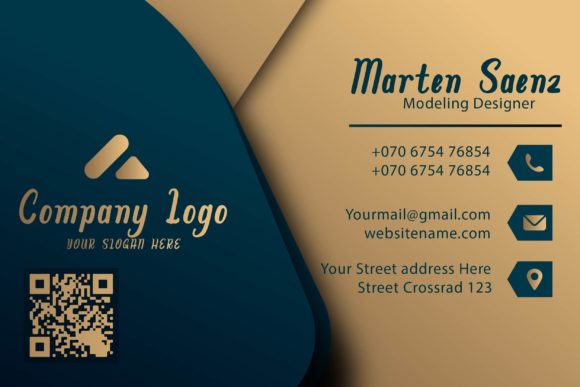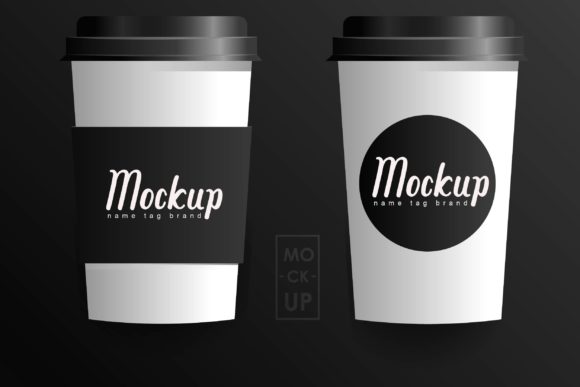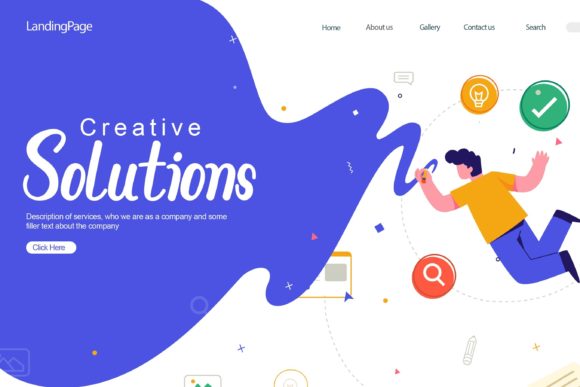
Introduction to Rondo Ship Font
Rondo Ship is a unique and elegant handwritten font.
It looks beautiful on a variety of designs requiring a personalized style, such as wedding invitations, thank you cards, weddings, greeting cards, logos and so on .